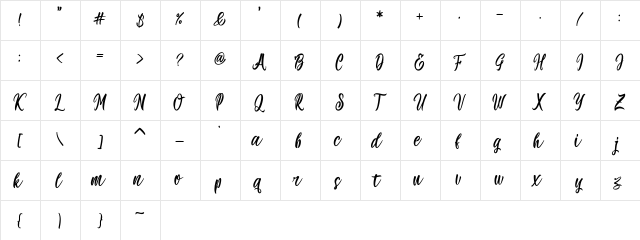
Wonderkids Regular
Design Context for Wonderkids Typeface
Wonderkids has an approachable, lighthearted character — its loose, expressive forms are well-suited to children's content, casual branding, and fun-first design.
Font Pairing: Pairs well with a rounded or humanist sans for body copy, maintaining the friendly tone without relying on Wonderkids to carry extended reading.
Pro Tip: Use Wonderkids at larger display sizes where its expressive character can land. Pair with a clean, simple sans for body copy to maintain readability.